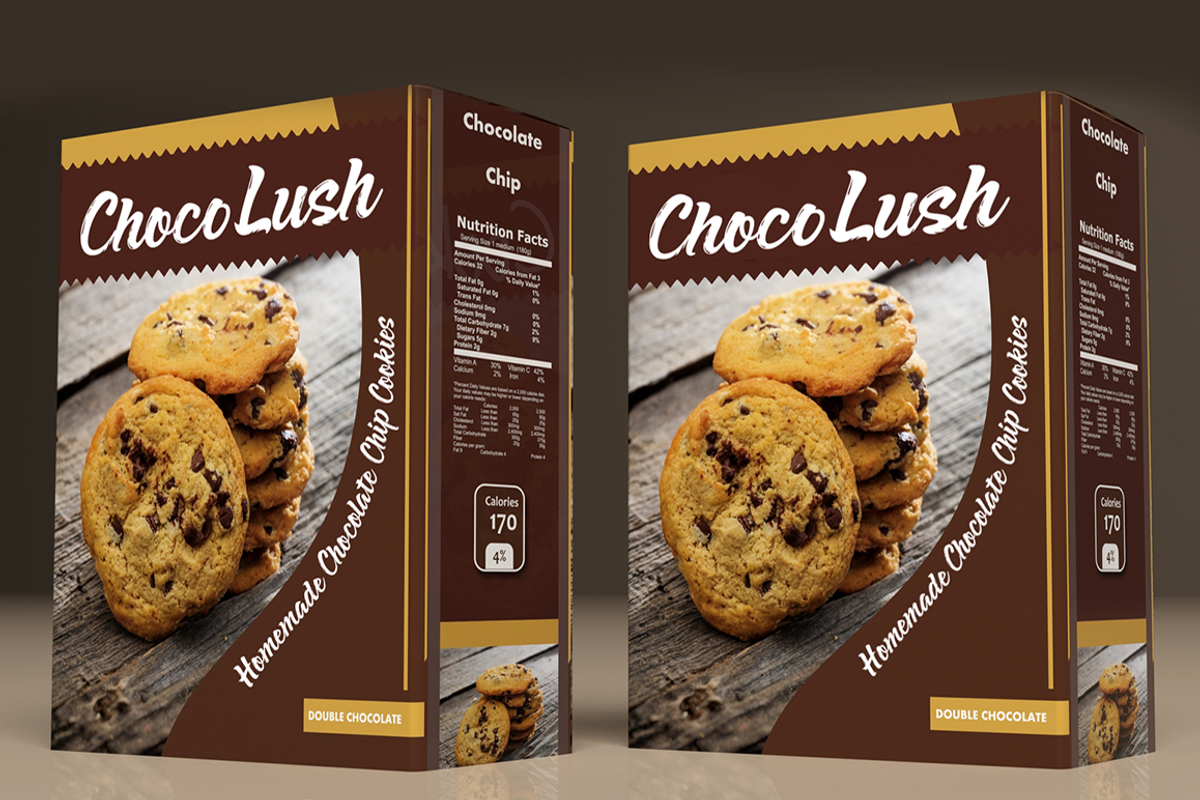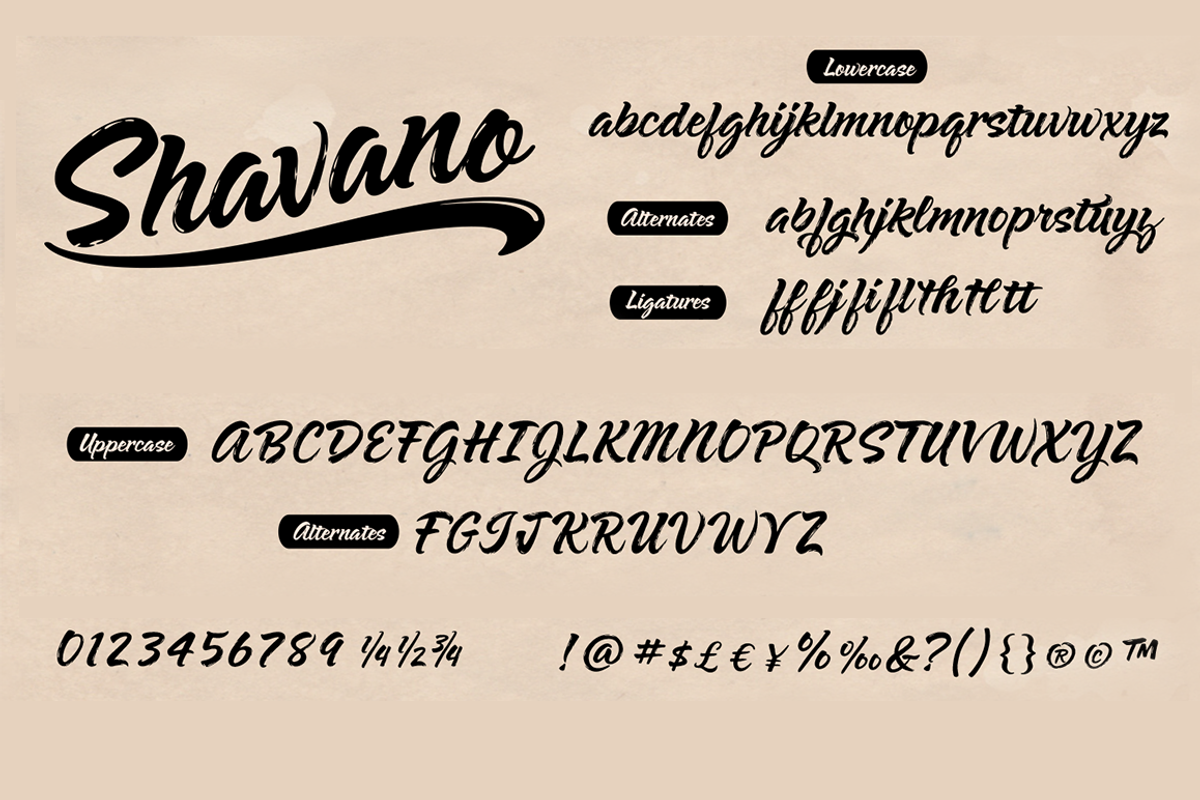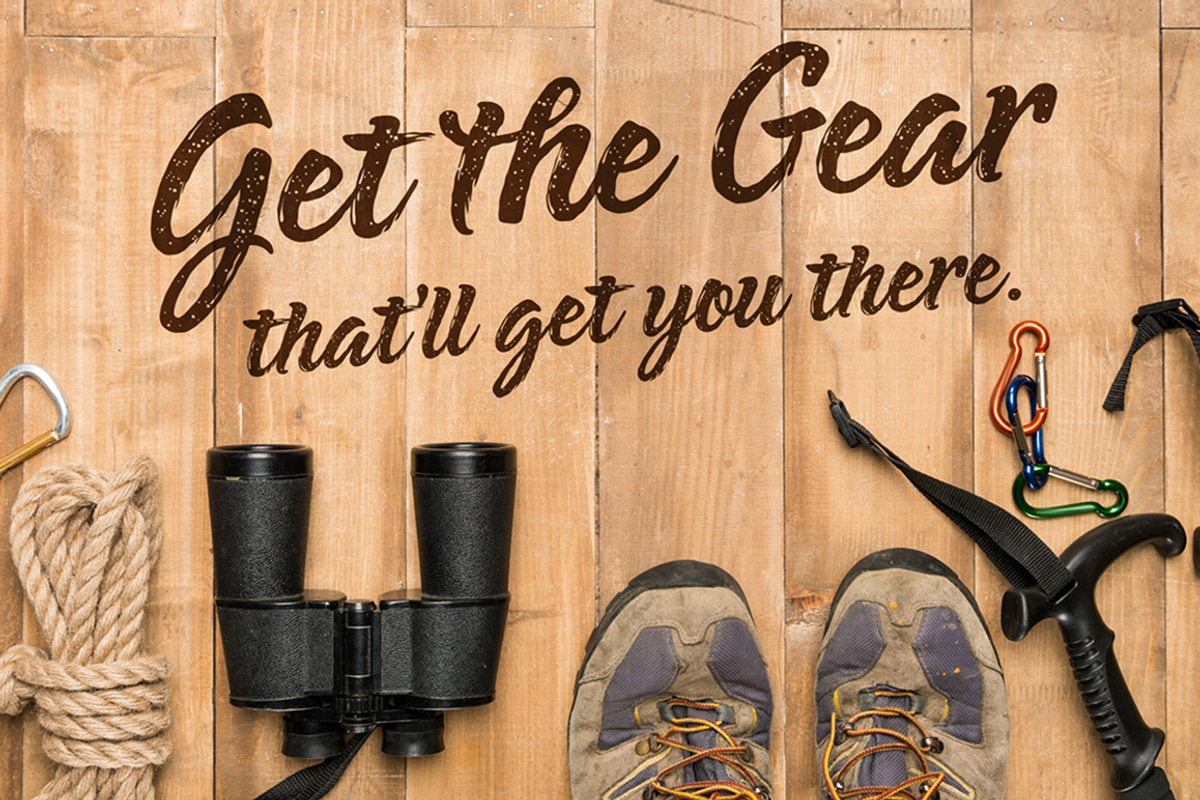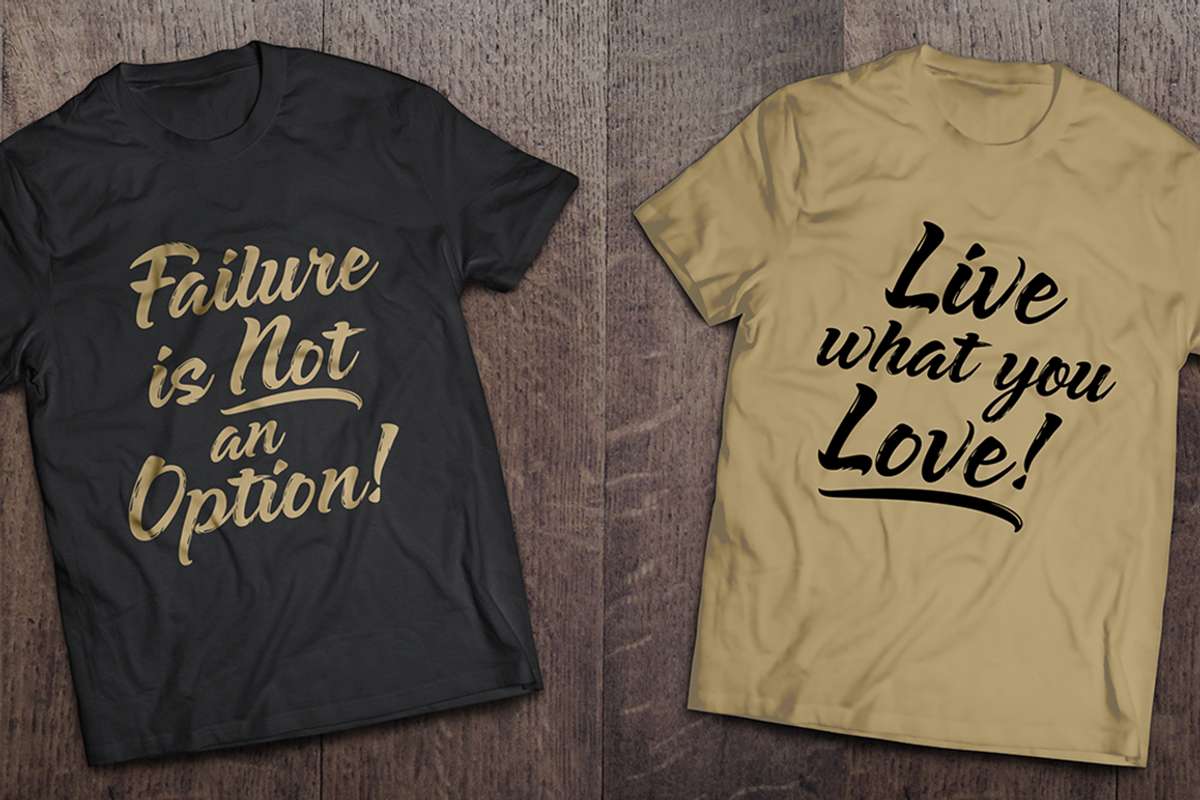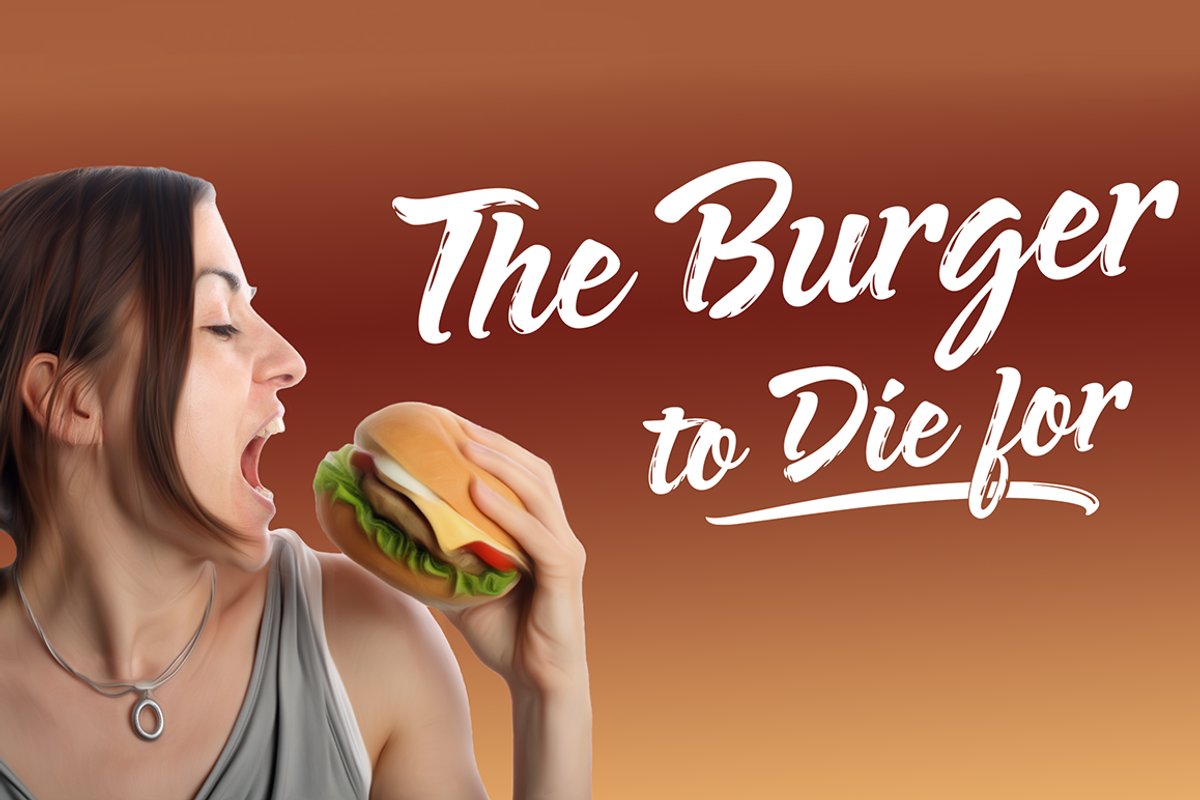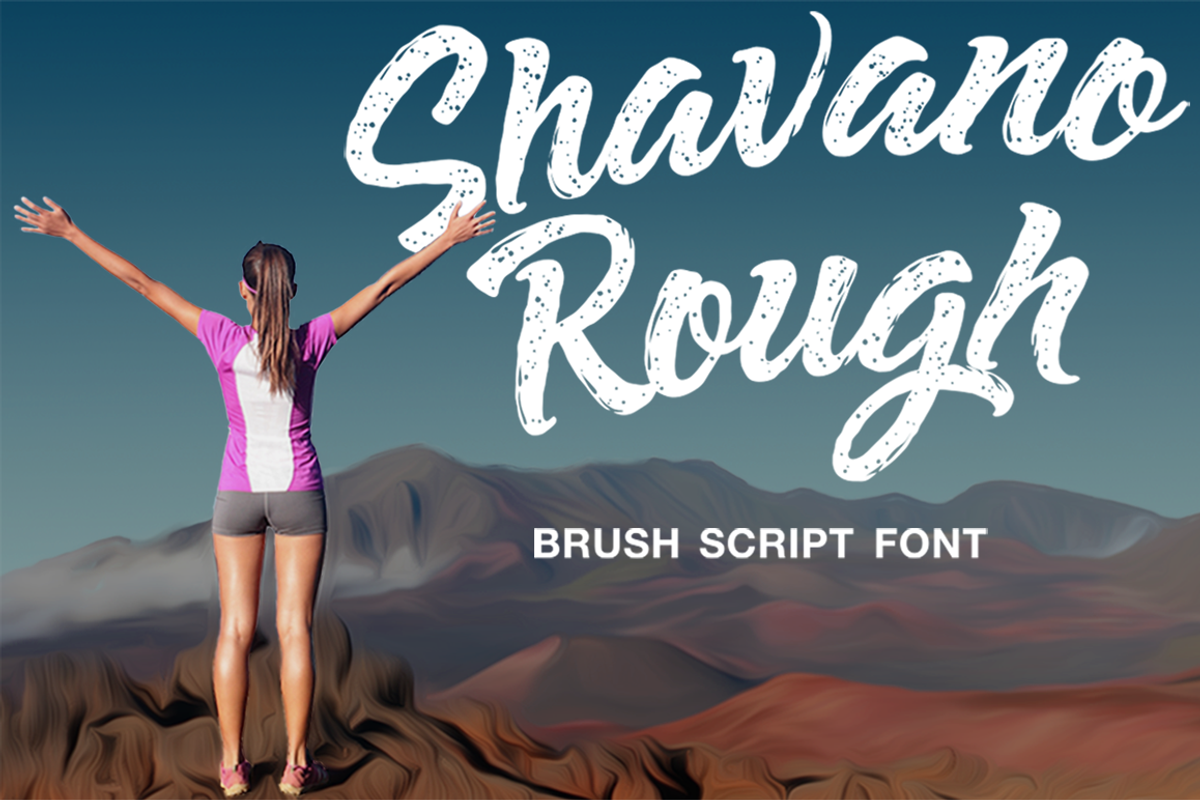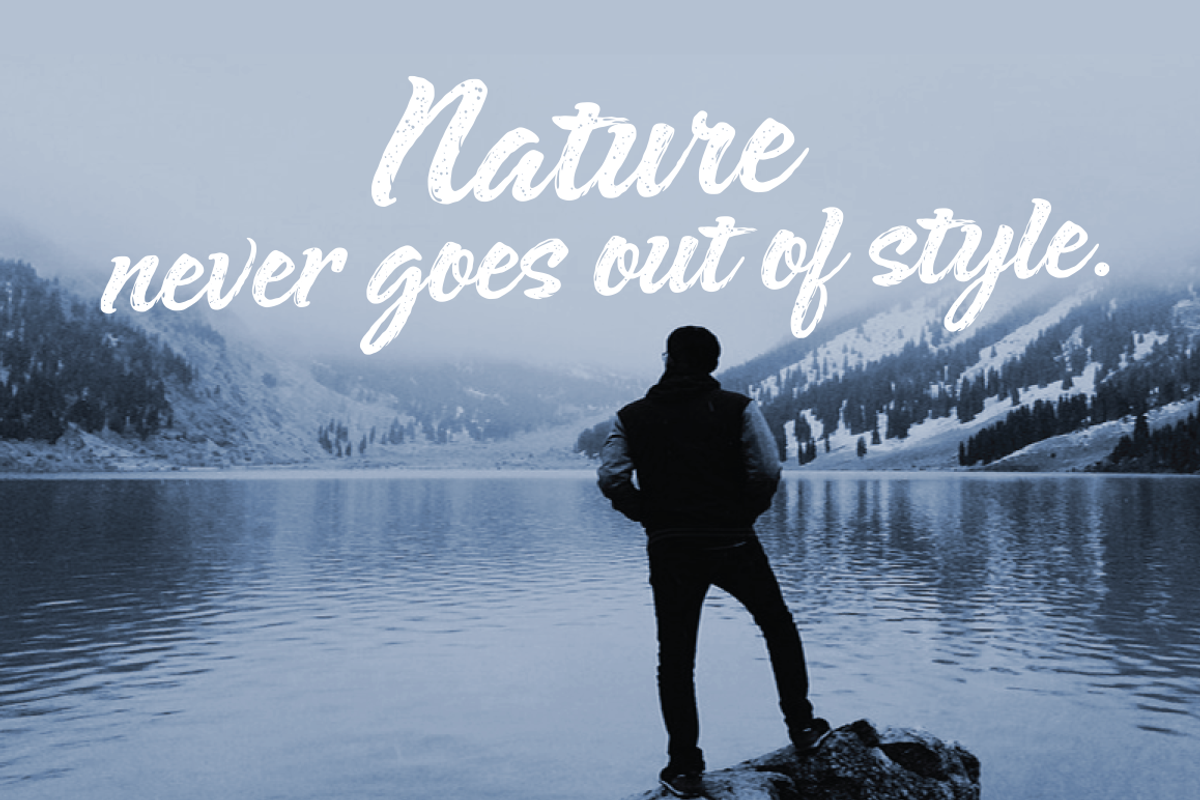
Shavano, a Bold & Beautiful font
Shavano is a bold, smooth-flowing typeface based on pointed brush script. It comes in 2 styles: a clean-edged and a rough style. It is ideal for branding, packaging, headlines, and apparel. This font comes with ligatures, swashes, and alternates.
- This font comes with ligatures, swashes, and alternates.
Shavano, a Bold & Beautiful font by Dan Cotton fits naturally into Branding, posters, packaging, typography.